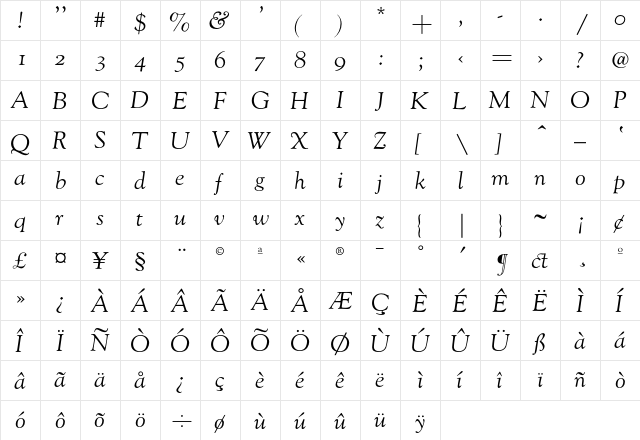
GoudyOldstyleZH-Italic Regular Font Preview
GoudyOldstyleZH-Italic Regular
Design Context for GoudyOldstyleZH-Italic Typeface
GoudyOldstyleZH-Italic brings classic typographic sensibility to the table — its serifs and measured letterforms reflect centuries of print heritage. Its italic angle brings a sense of urgency and motion to the letterforms.
Pro Tip: Use GoudyOldstyleZH-Italic for editorial body copy and considered headline work. Pair with a neutral sans for UI elements or captions to create a classic hierarchy.